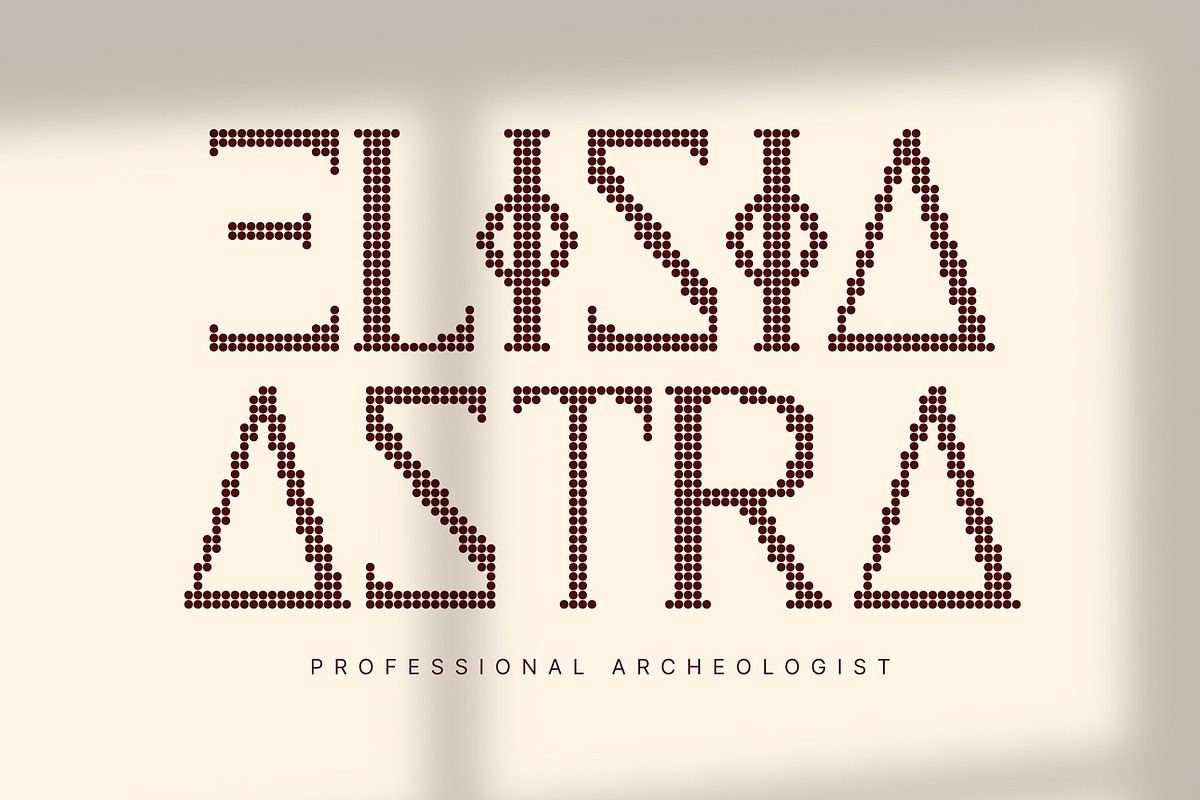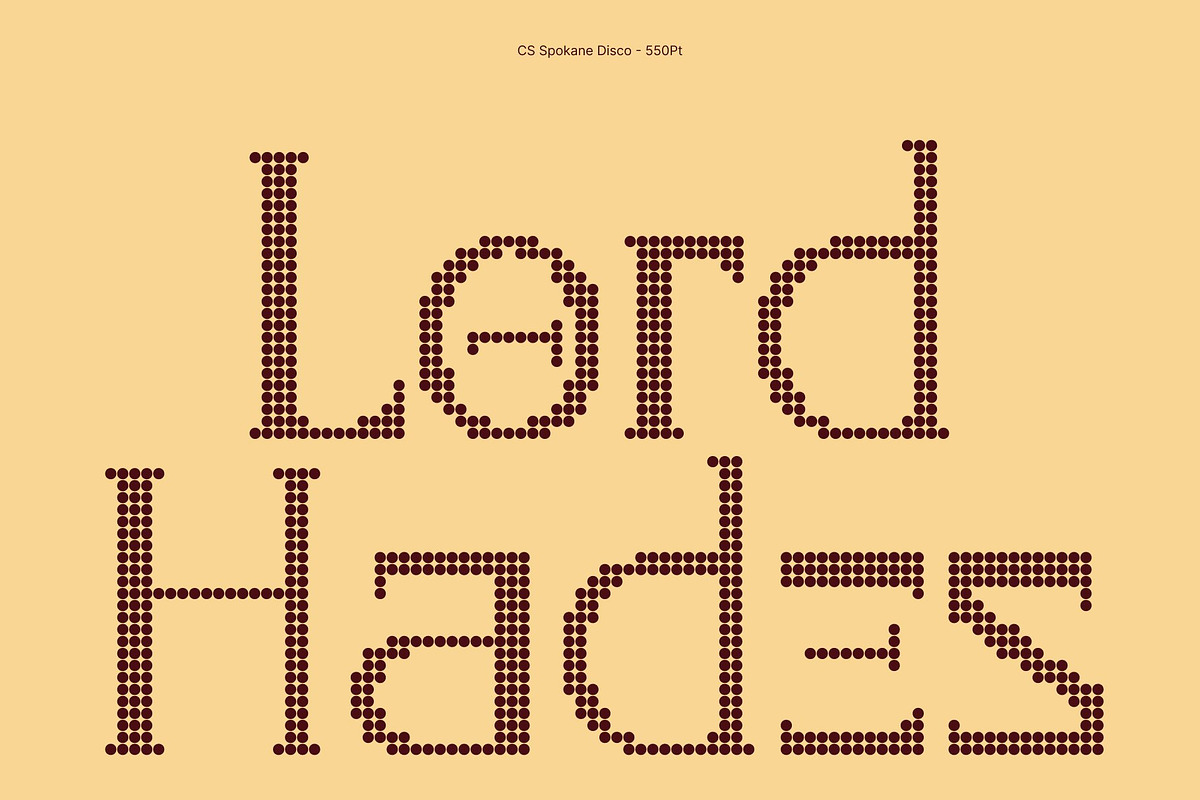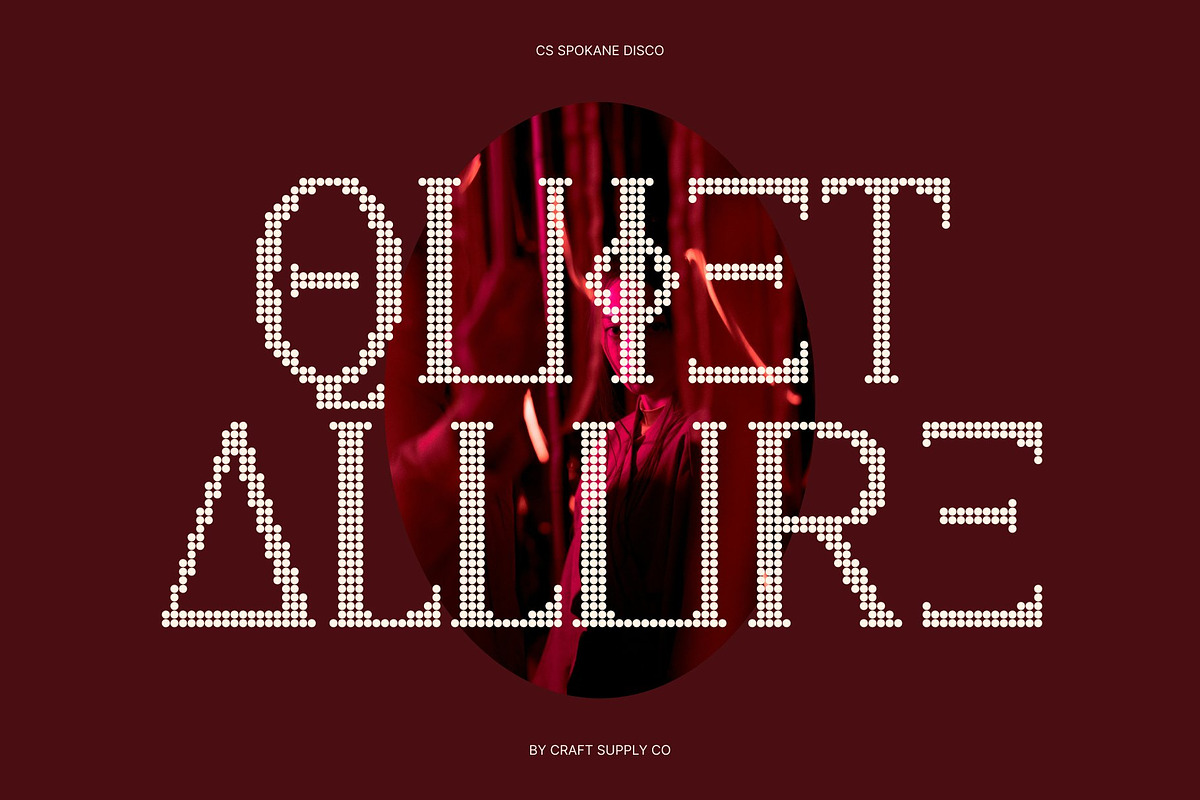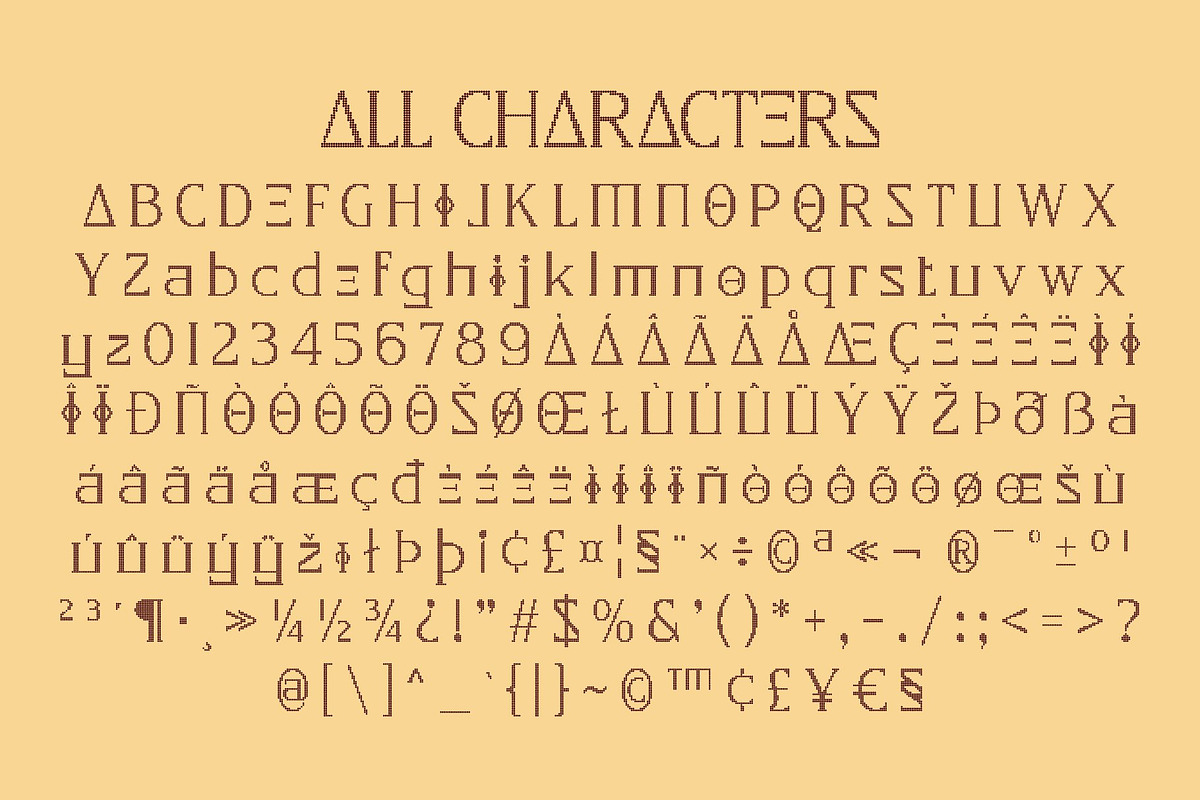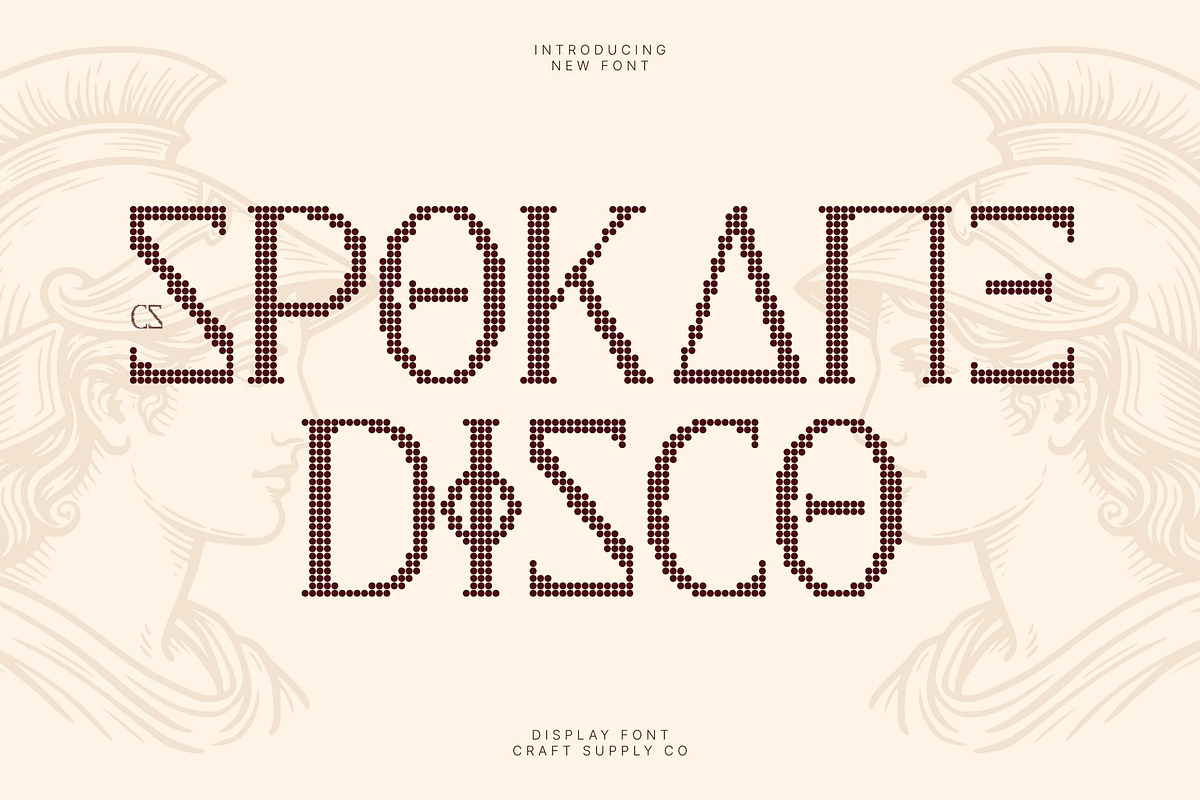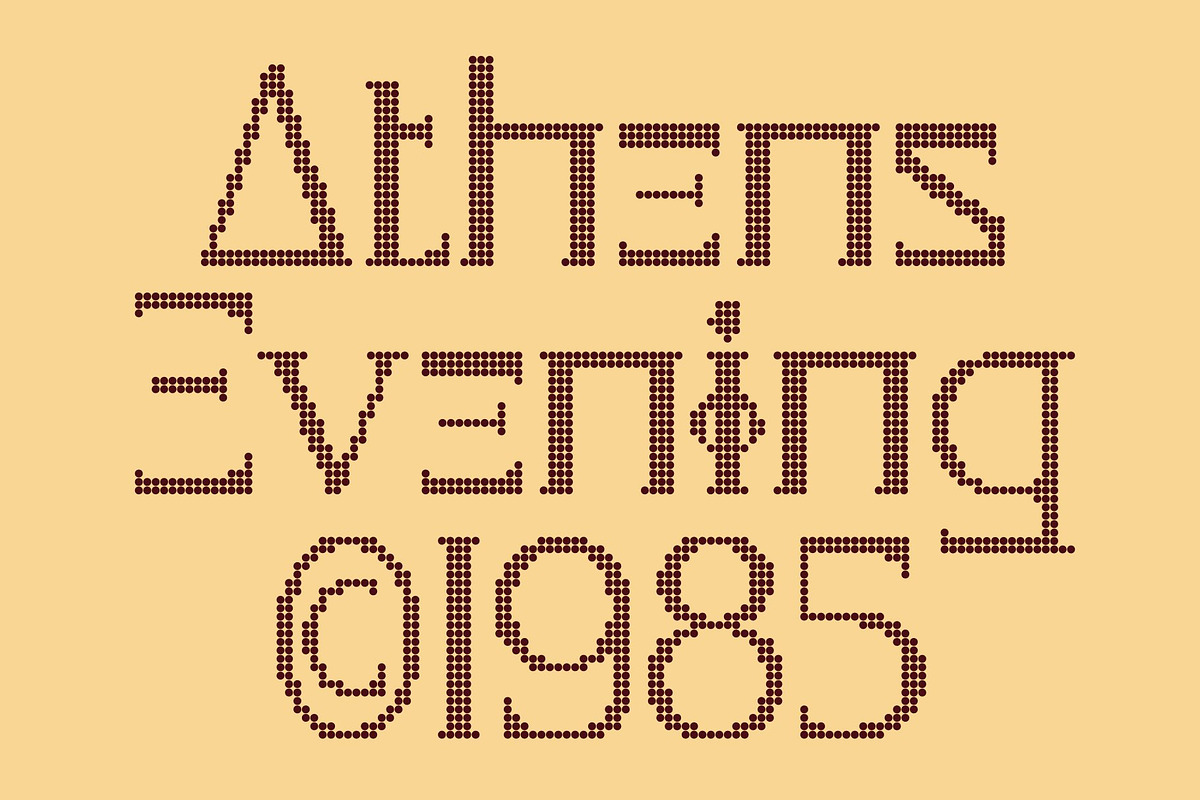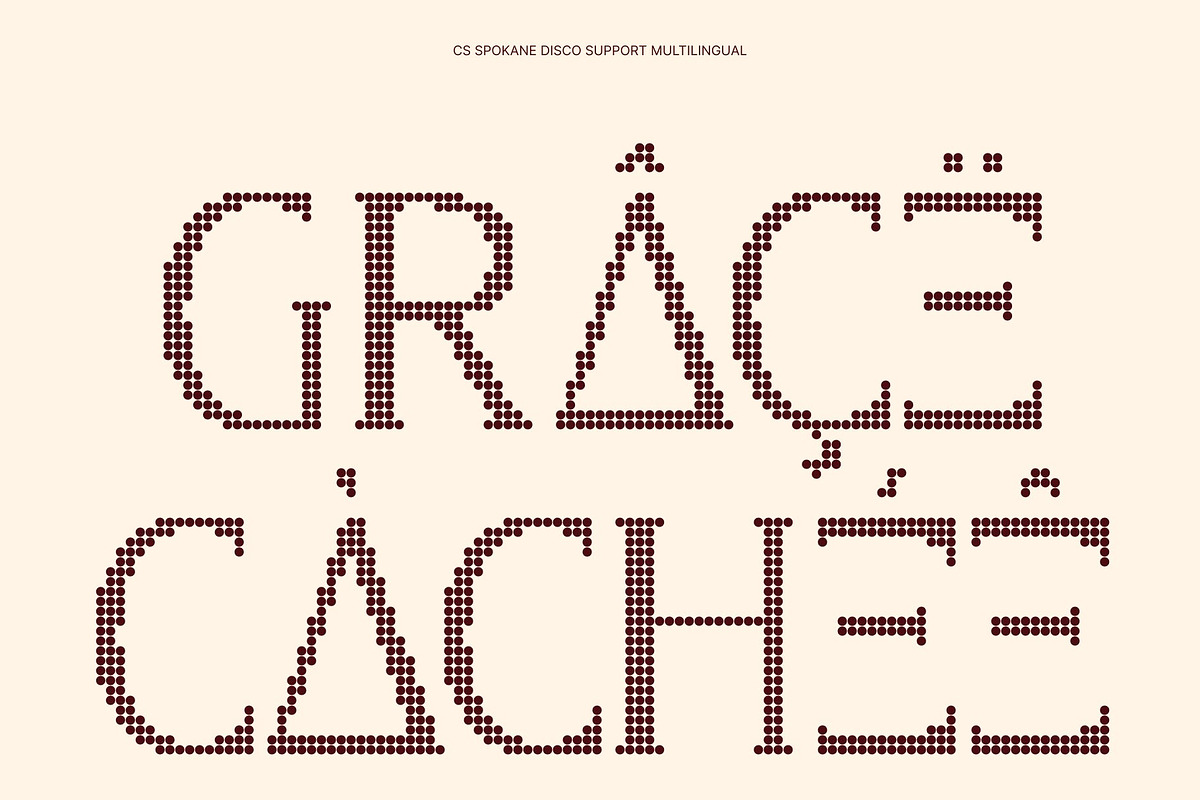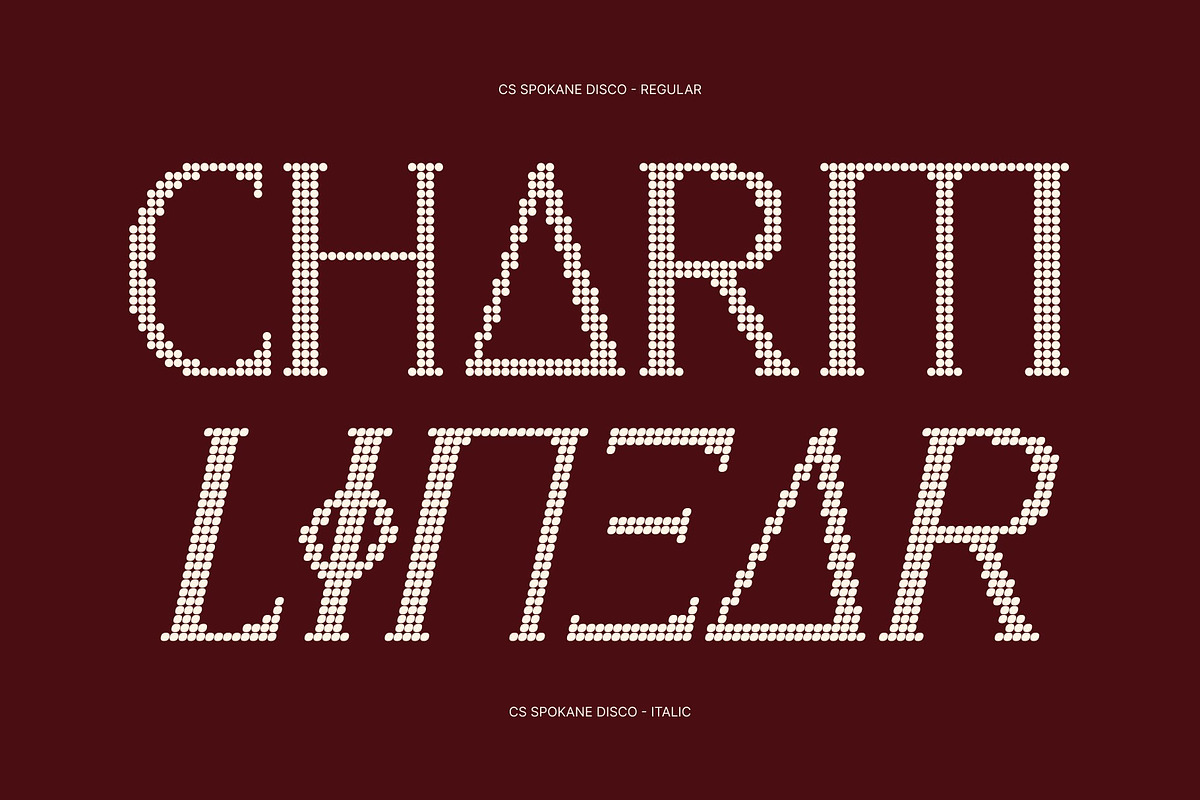
CS Spokane Disco
CS Spokane Disco – Timeless Serif with Greek-Inspired Sparkle
Classical Elegance Reimagined in Disco Dots This font transforms a refined Greek-inspired serif into a radiant dotted display font. The sculpted serifs and harmonious proportions remain rooted in classical beauty, while the disco dot texture introduces a festive glow that feels vibrant, celebratory, and modern.
Ancient Influence with Glamorous Energy Inspired by the elegance of ancient inscriptions and classical architecture, the letterforms carry a sense of balance, intellect, and sophistication. The dotted styling adds a playful shimmer, turning timeless tradition into typography that feels lively and eye-catching.
Graceful Structure with Rhythmic Shine The precise serif details and balanced construction create a majestic rhythm across every word. With its sparkling dot treatment, the font delivers both historical refinement and joyful movement perfect for designs that want to feel cultured yet exciting.
Perfect for Luxury, Editorial, and Event Design This font shines in luxury branding, high-end editorials, fashion campaigns, invitations, and glamorous posters. It blends classical sophistication with party-ready charm, making it ideal for projects that aim to feel elegant, radiant, and memorable.
CS Spokane Disco Regular
CS Spokane Disco Italic